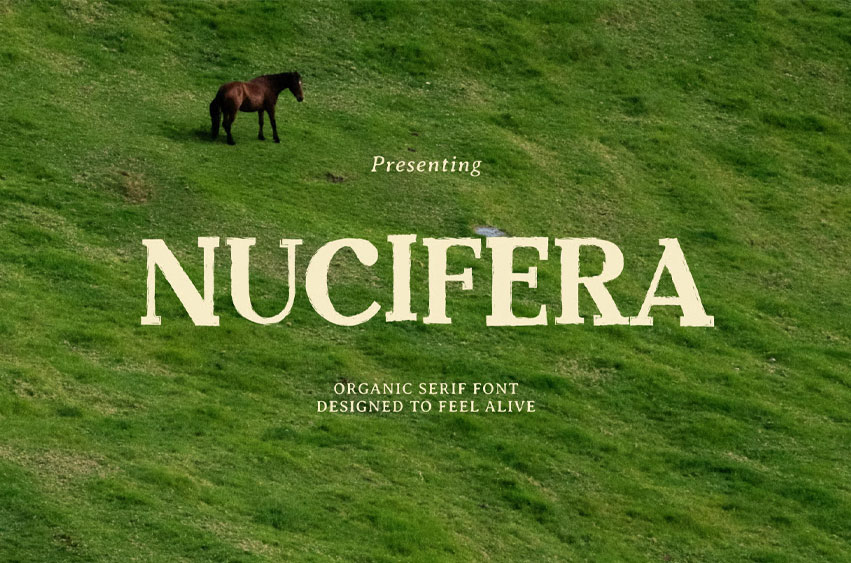
Nucifera Font
Nucifera Font Organic Serif Font Designed to Feel Alive, a warm and textured serif typeface crafted to bring a natural, human touch to design. With its imperfect curves and earthy character, Nucifera is especially recommended for organic product packaging, wellness branding, and sustainable lifestyle labels. Beyond eco-conscious branding, its grounded personality also adapts beautifully to botanical editorials, artisan craft branding, and nature-inspired social media content.
The vision for Nucifera – Organic Serif Font Designed to Feel Alive was to create a typeface that feels grown rather than drawn. Inspired by natural textures, hand-carved lettering, and the quiet imperfection found in nature, each letterform carries subtle irregularities that breathe life into the page. This makes it perfect for brands that want to feel authentic and rooted, whether on a coconut oil label or a botanical skincare box.
• Organic Character: Textured, hand-finished letterforms that feel natural and alive.
• Versatile Appeal: Works seamlessly for wellness, botanical, and sustainable lifestyle brands.
• High Quality: Clean vector construction ensures crisp results at any size.
• Organic and Wellness Brands: Build trust with Nucifera on packaging, labels, and product branding.
• Botanical and Skincare Products: Add earthy warmth to natural cosmetics and self-care labels.
• Artisan and Craft Branding: Give handmade goods and small-batch products an authentic feel.
• Nature-Inspired Editorial: Elevate botanical magazines, eco campaigns, and lifestyle content.
With Nucifera – Organic Serif Font Designed to Feel Alive, you’ll bring genuine, grounded character to every natural branding project. Whether you’re labeling organic products, designing wellness packaging, or creating earthy editorial layouts, Nucifera delivers warmth and authenticity that speaks directly to nature-driven audiences.